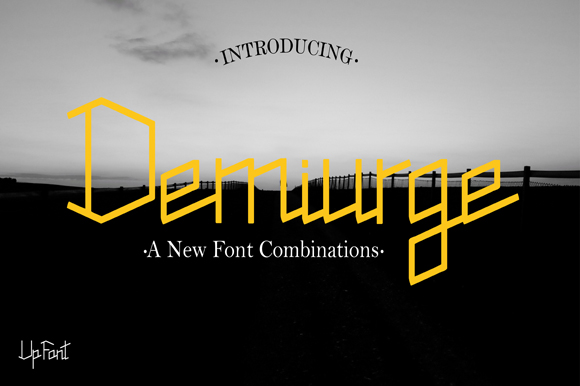
Font name: | Demiurge |
Author: | Marhandam Palindung |
Note by Marhandam Palindung | |
Proudly offering our newest product Demiurge font! This font consists of 2 different 'script and sans' styles. These two beautiful fonts will be perfect to incorporate into your design. Font Style: 1.Regular 2.Italic(Full Version) ====================================================== NOTE: This demo font is for PERSONAL USE ONLY! But any donation are very appreciated. Paypal account for donation : https://www.paypal.me/MarhandamPalindung Link to purchase full version and commercial license: https://www.creativefabrica.com/product/demiurge-2/ Please visit our store for more great fonts : https://www.creativefabrica.com/designer/up-font-studio And follow my instagram for update : @upfontstudio Thank you |